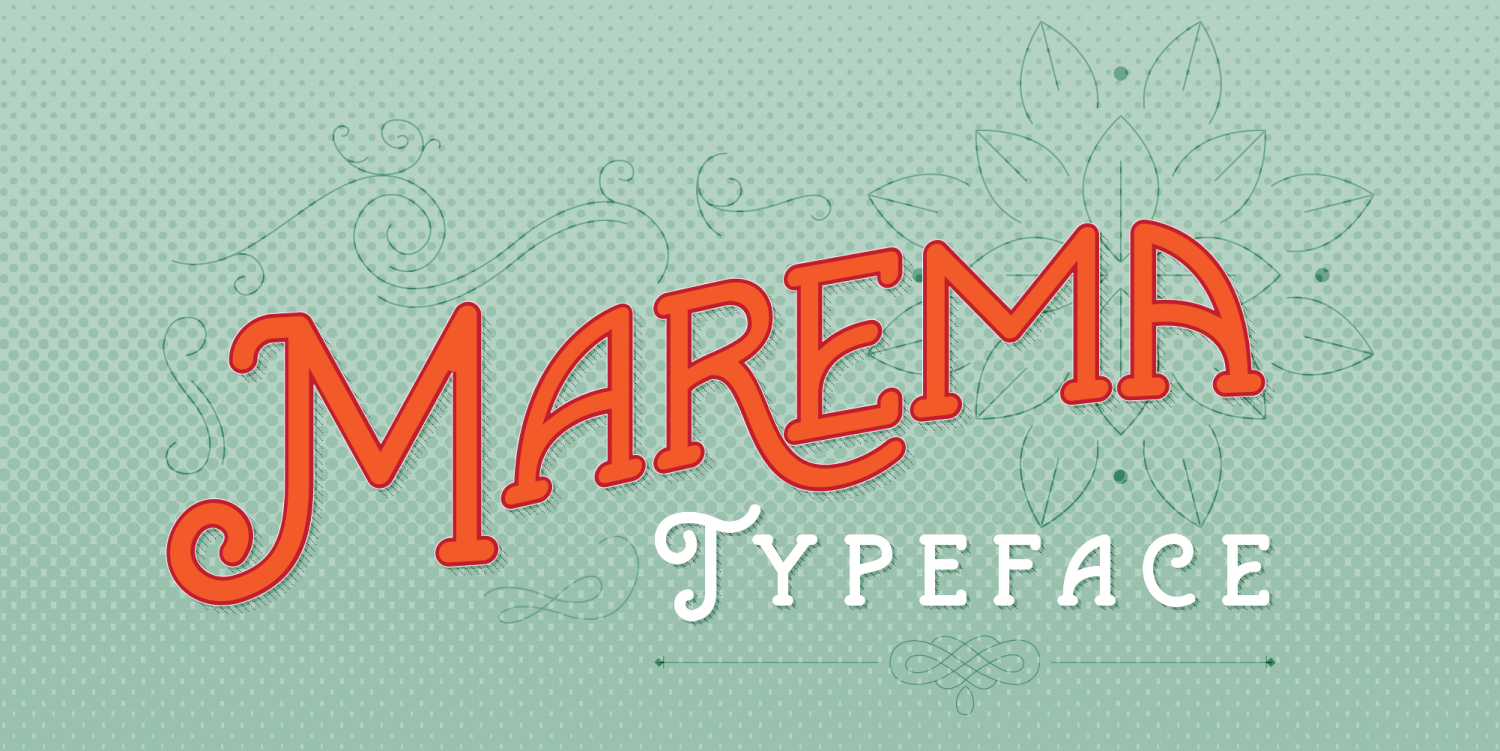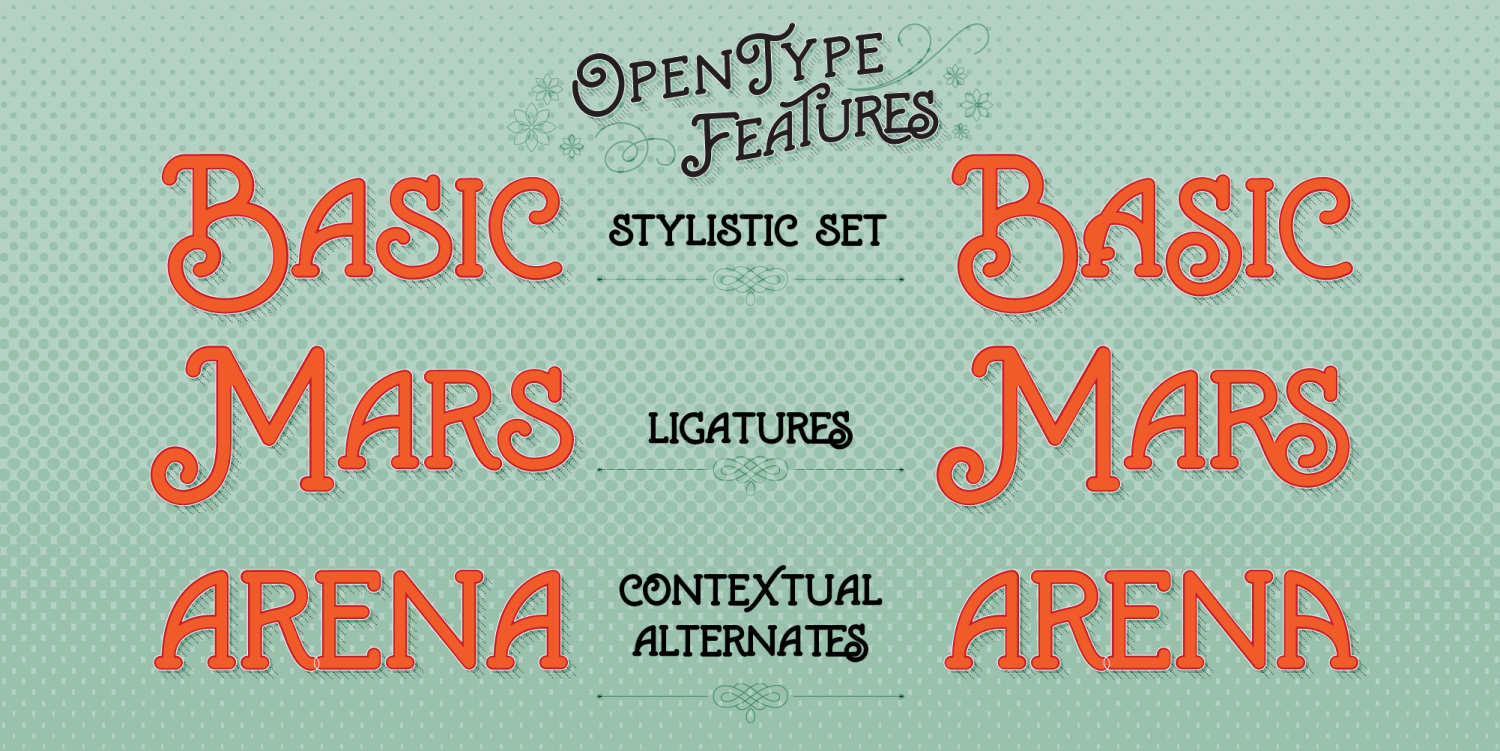
Marema Typeface
Rounded, classic display face, inspired by vintage Victorian posters. Best for posters, headlines, logos, etc. with a modern vintage design.
Supports Opentype features like Stylistic Alternates, Contextual Alternates, and Ligatures.
For Example:
Stylistic Alternates : You can choose different letter r in glyph mode.
Contextual Alternates : Flipped a, when you type the first letter is 'a' the has curved in left, and if the letter 'a' in last, the curve automatically in right.
Ligatures : the unique ways to redrawing two letters into one. Just try typing 'es', 'rs', 'tt', etc.